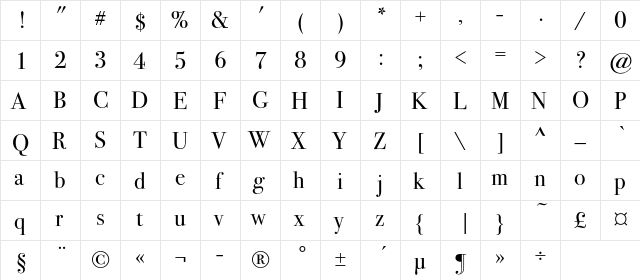
Bodoni72C Regular
Design Context for Bodoni72C Typeface
Bodoni72C takes a measured approach to typography — its balanced proportions and neutral character make it a reliable workhorse for both digital and print work.